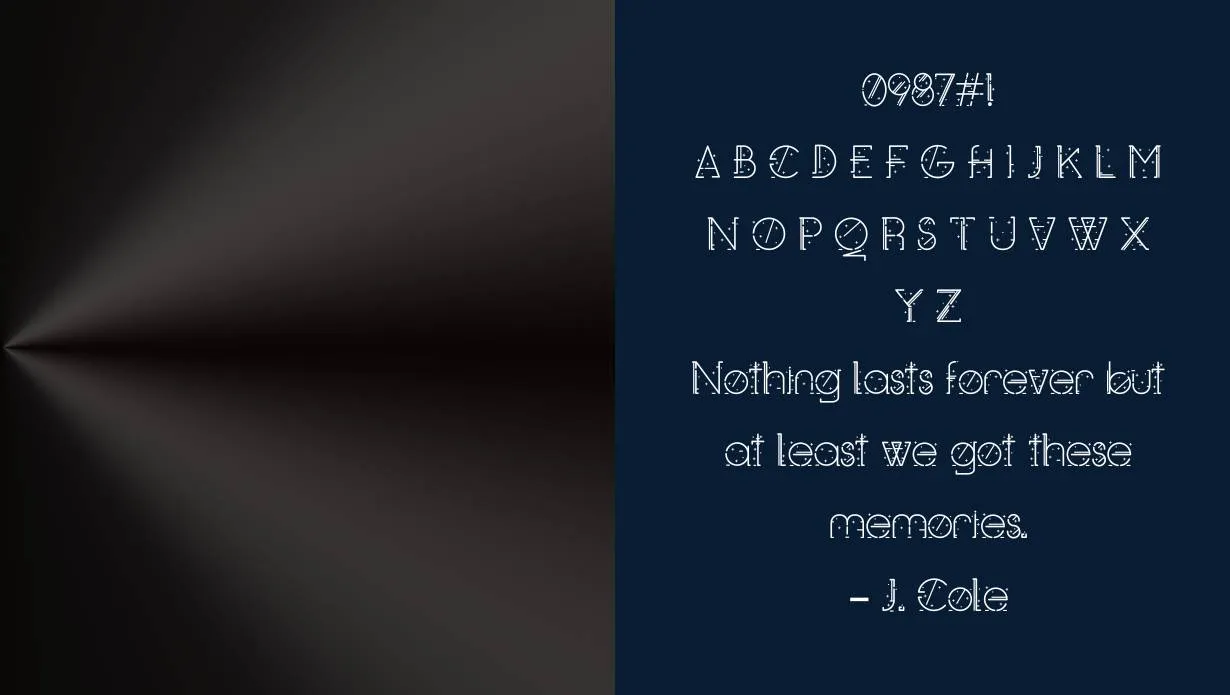
Lieben Font is a fancy typeface designed by German type designer Paul Renner in 1927. The font was released by the Berthold Type Foundry in 1928. The name “Lieben” means “beloved” in German.
| Name | Lieben Font |
| Designer | Paul Renner |